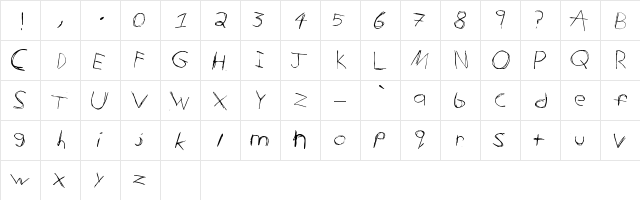
Etched in a Desk Regular
Design Context for Etched in a Desk Typeface
Etched in a Desk is a composed and adaptable typeface that performs quietly and consistently across a wide range of design contexts.